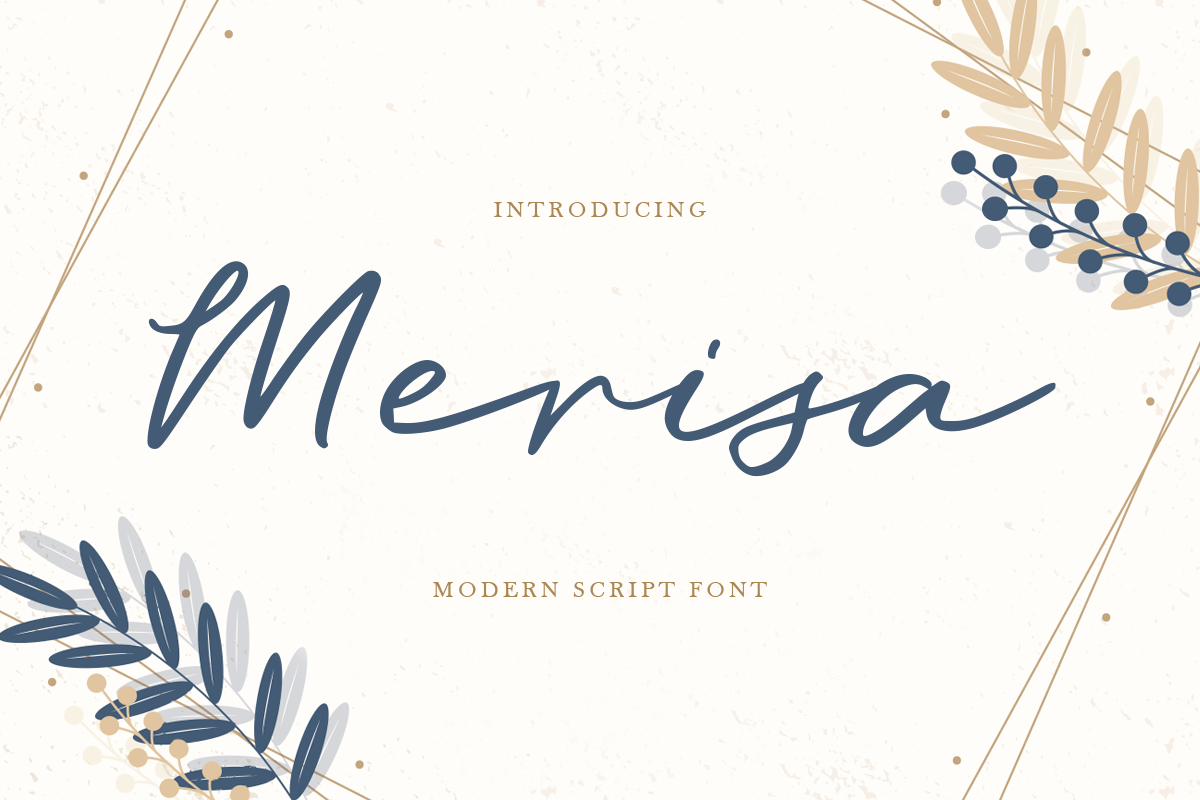
Merisa
-Modern Script Font
Merisa
Merisa A Modern Script font with nice and modern style and so beautiful. This font specially crafted for your project design or professional logo, modern for any designs such as product, merchandise, and so many more with easy to use but unique results are so professional. Enjoy to Design any your needs with cute, cheerful, and charming feel.